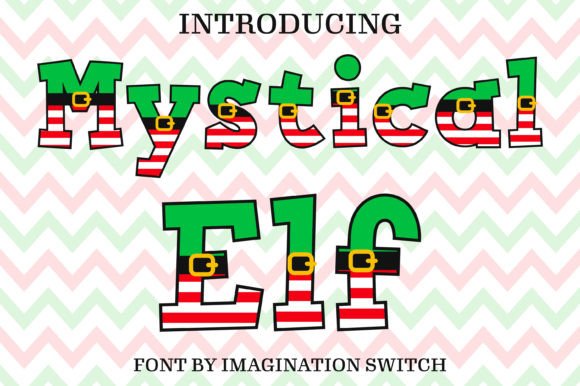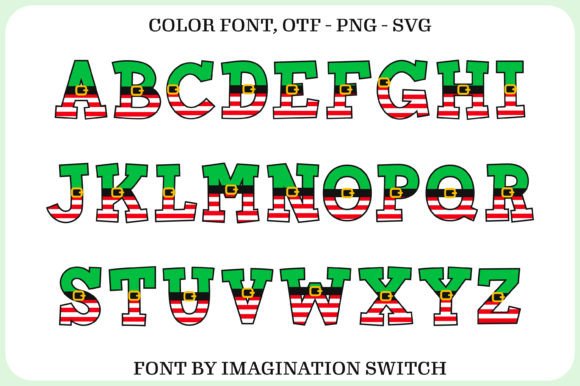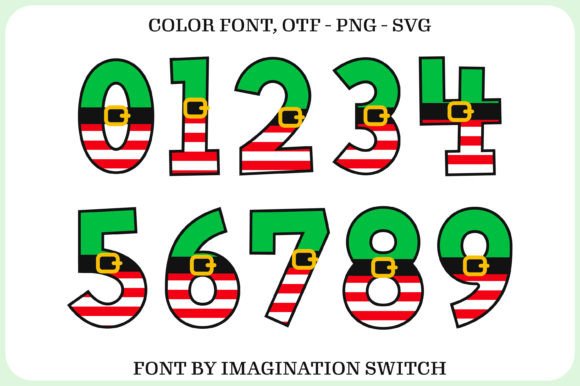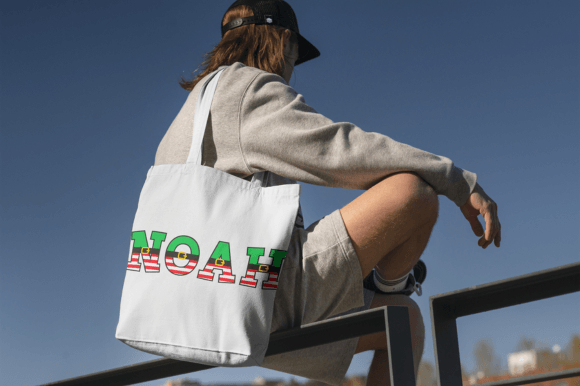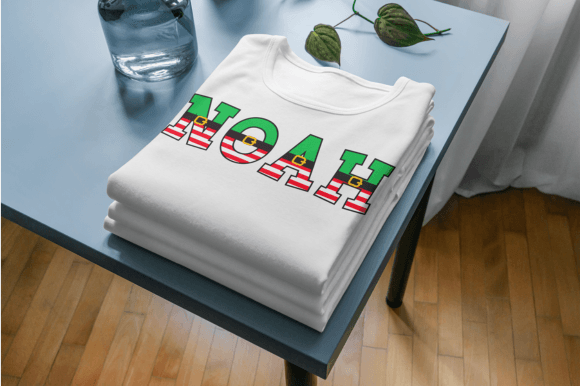
Mystical Elf Font
This font is a captivating typographic creation that utilizes intriguing colors to enhance its visual appeal. With a complete set of characters, including uppercase, lowercase, and numbers, this font has been meticulously designed to provide flexibility across various types of projects.
When you utilize this font, you introduce uniqueness and creativity to your designs. Carefully chosen colors for each character add a mesmerizing visual touch, making each word and number stand out.
This font is suitable for a wide range of purposes, including print designs, web designs, promotional materials, and more. Its excellent legibility and visually appealing presentation make it an ideal choice for enhancing the visualization of your message.
With the Color Font, you can express your creativity in every project you undertake, crafting unforgettable designs with a unique color touch.